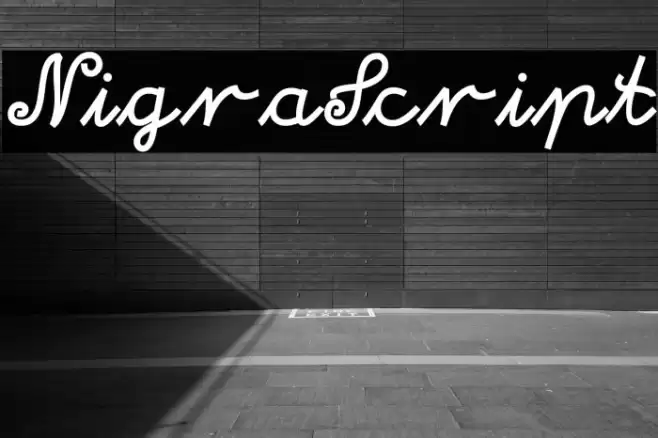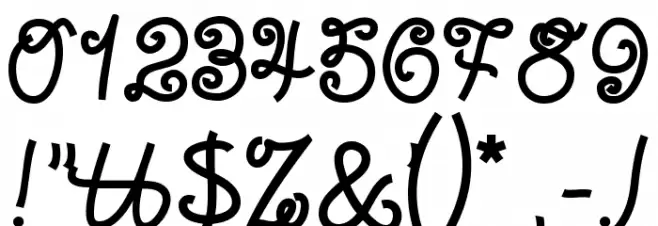
NigraScript Font
NigraScript Description
This font features a playful and decorative script style, characterized by its swirling, cursive letterforms. The uppercase letters are ornate, with flourishes and loops that give them a whimsical appearance. The lowercase letters maintain a consistent flow, enhancing readability while retaining the decorative essence. Numbers and special characters are similarly styled, with unique embellishments that add to the font's charm. The overall design is cohesive, making it suitable for creative and artistic projects.
A decorative script font with playful, swirling letterforms from Uncategorized fonts.
- Proposed Projects: Ideal for invitations, greeting cards, logos, and creative branding projects.
- Use Case: Logos, Invitations, Greeting cards